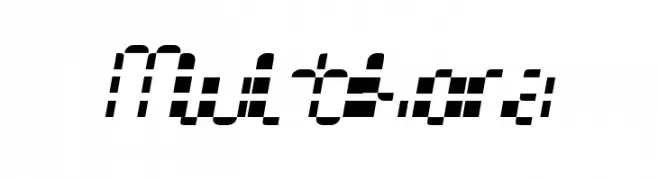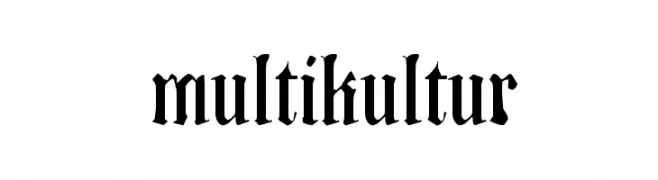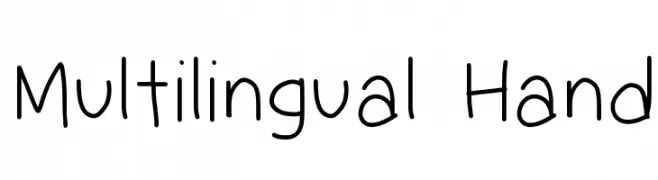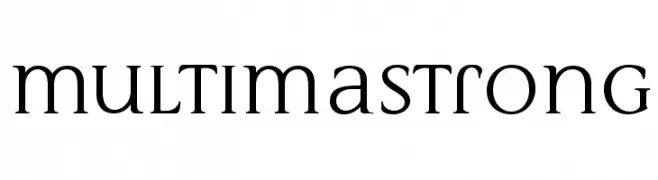
A bold, decorative font with an artistic, hand-drawn style.
A pixelated, digital-style font with a modern, tech-inspired aesthetic.
A classic blackletter font with ornate, angular designs and a medieval aesthetic.
A bold, gothic-style font with sharp angles and thick strokes, ideal for dramatic headlines.
A playful, casual handwritten font with an organic flow.
An elegant serif font with a modern twist, offering balanced and refined letterforms.
A bold, decorative font with multiple strokes creating a layered effect.